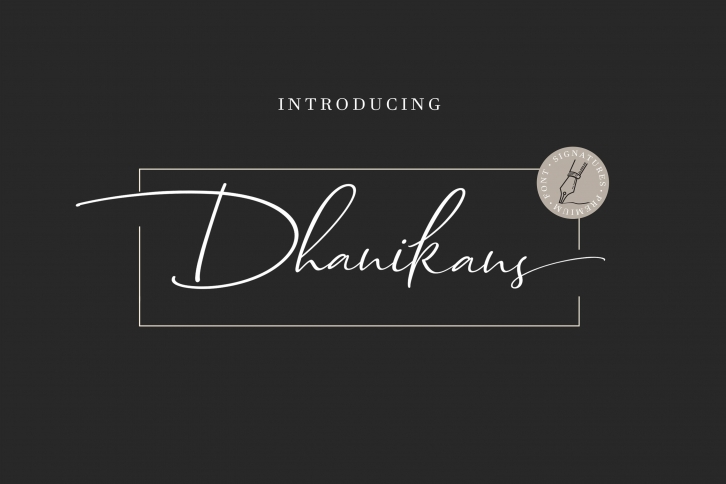
Dhanikans Signature Duo is a gorgeous font that was realeased on July 31, 2018. The font can be used in many style contexts and design environments. Perfect for invitations, magazines, websites, logos, and more! It was designed by Cotbada Studio and the file size is 14.41 MB. Thanks for checking out this font!